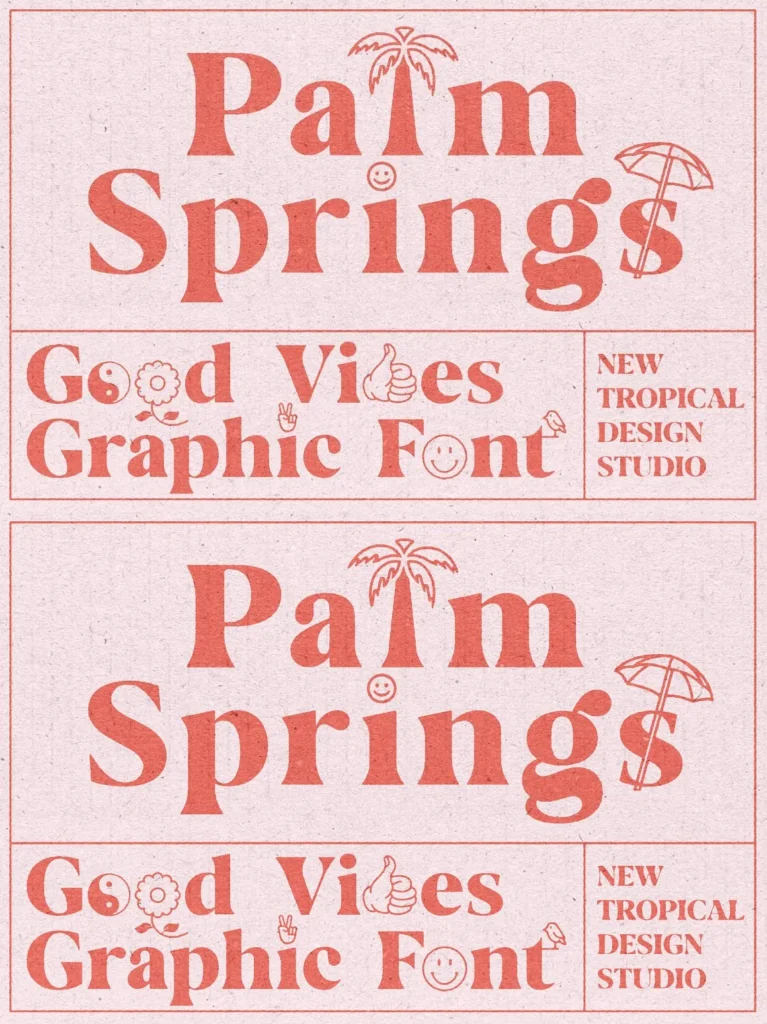
Palm Springs Graphic Font is a one of kind typeface with built in graphics. Just type your text and add intertwined graphic letters with a single click. It’s never been easier to get those good vibes and 70s styles.
Non English glyphs included:
ą á â à ä å ã æ ć ç ę é ê è ë í î ì ï ı ł ñ ń ó ô ò ö õ ø œ ś š ß ú û ù ü ý ÿ ž ź ż.Ą Á  À Ä Å Ã Æ Ć Ç Ę É Ê È Ë Í Î Ì Ï Ł Ń Ñ Ó Ô Ò Ö Õ Ø Œ Ś Š Ú Û Ù Ü Ý Ÿ Ź Ż